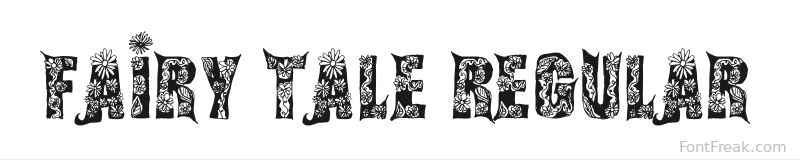
Fairy Tale Regular
Fairy Tale Regular by Cloutierfontes is a whimsical display font that perfectly captures the essence of childhood enchantment. This decorative typeface features playful, ornate letters adorned with intricate floral and whimsical elements, making it a captivating choice for various design projects. The stroke weight varies throughout the characters, contributing to a sense of movement and charm, while its moderate contrast ensures readability without sacrificing style. The spacing between the letters is carefully considered, allowing each character to breathe while maintaining an engaging visual flow.
This font is particularly well-suited for wedding invitations, where its enchanting style can evoke romance and fantasy. It also shines on movie posters, especially for genres like fantasy or adventure, where it can draw in audiences with its unique aesthetic. Additionally, Fairy Tale Regular is a delightful choice for children's book covers, bringing stories to life with its imaginative appeal. Restaurant menus that focus on a whimsical or fairytale theme can benefit from this font, creating an inviting atmosphere for diners. Small business owners and content creators looking to add a touch of magic to their branding will find this font an invaluable asset.
Targeting graphic designers, small business owners, and content creators, Fairy Tale Regular offers a fresh and engaging alternative to standard typefaces. The font’s playful characteristics invite creativity and can transform ordinary projects into something truly special.